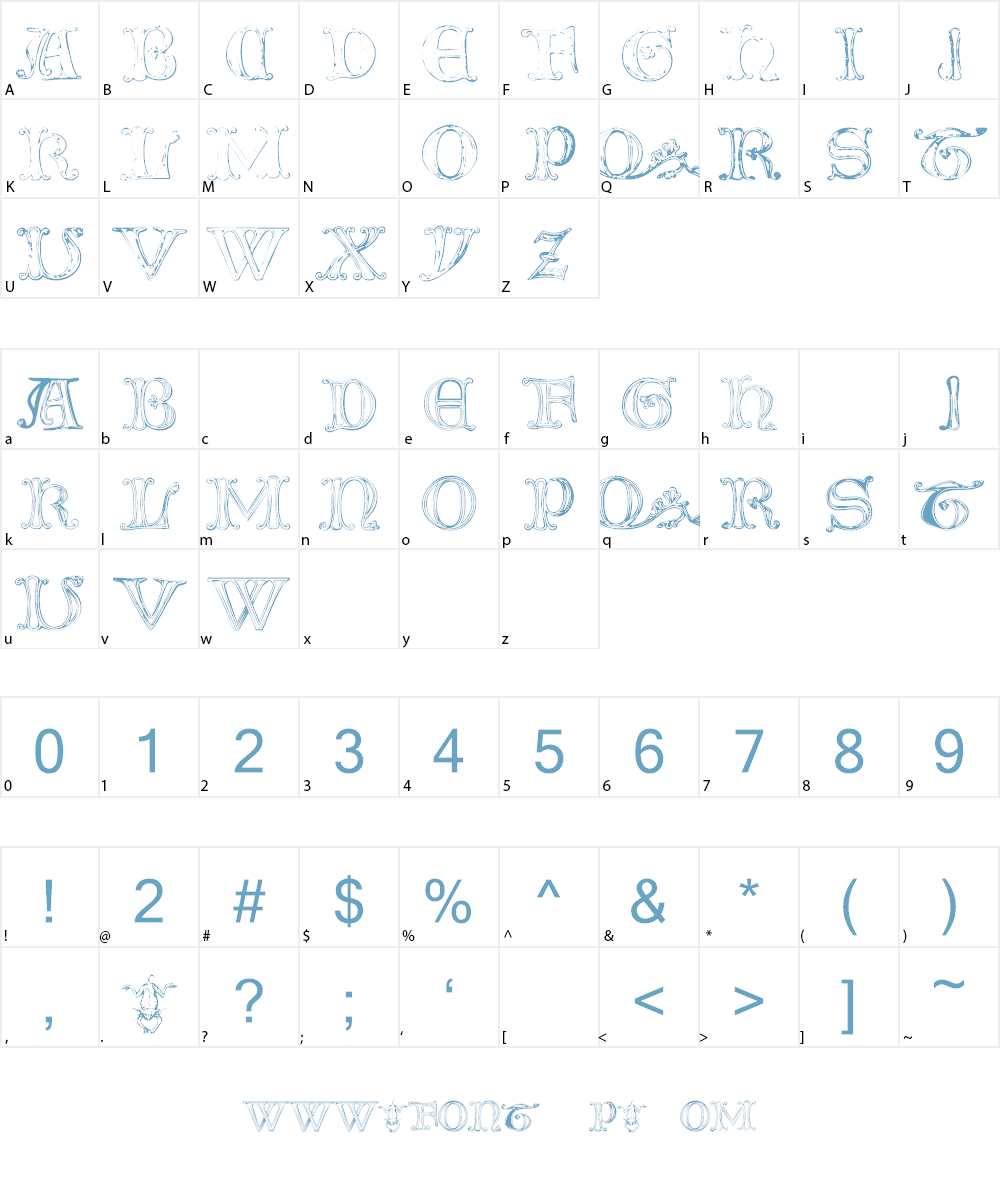
"The Tomb (winter and spring)" is much like everything else in life..unstable. Try playing with both the upper and lower case. Some letters are missing. The real treat with this font is the little goblin that lives in the period character. I made "The Tomb" to reflect raised and incised letters from tombstones. This font is heavily inspired from the incised letters from the tomb of Henry III, Westminster Abbey, about 1272.The original drawing was done on typing paper (lower case), and was then taken into Adobe PhotoShop with the dry brush filter used (upper case).